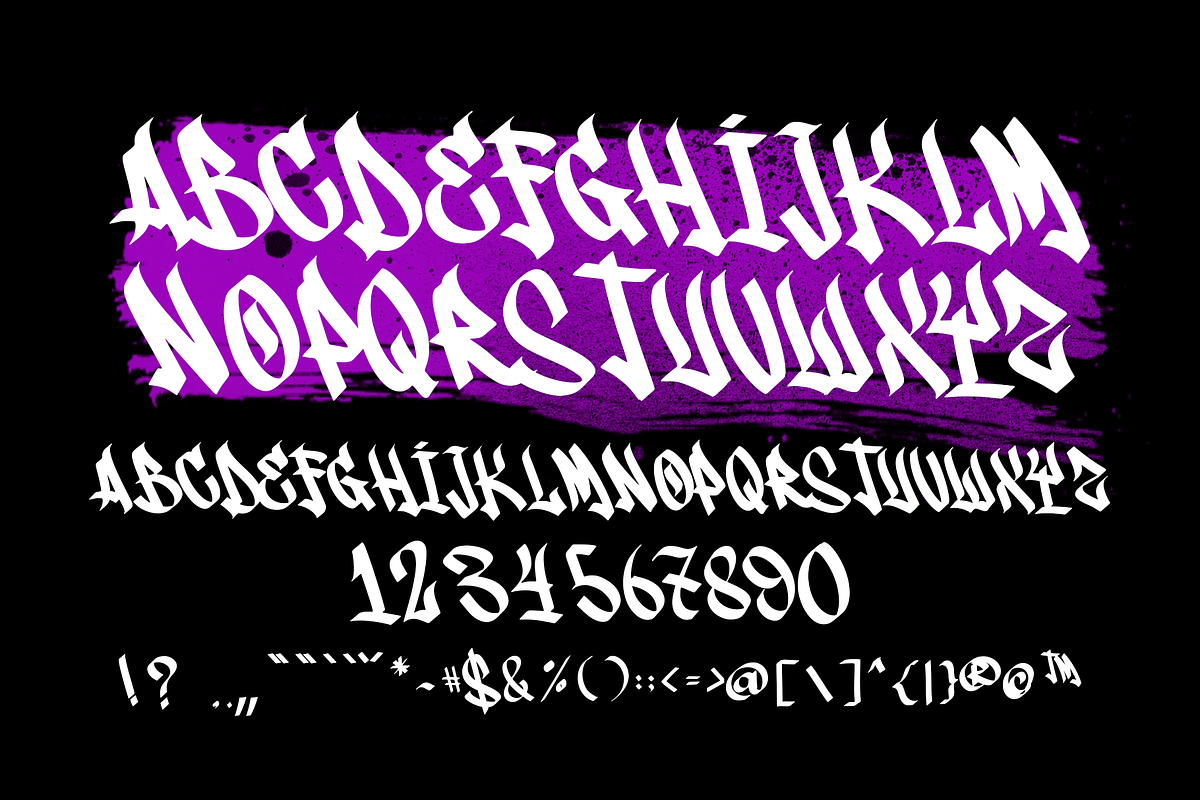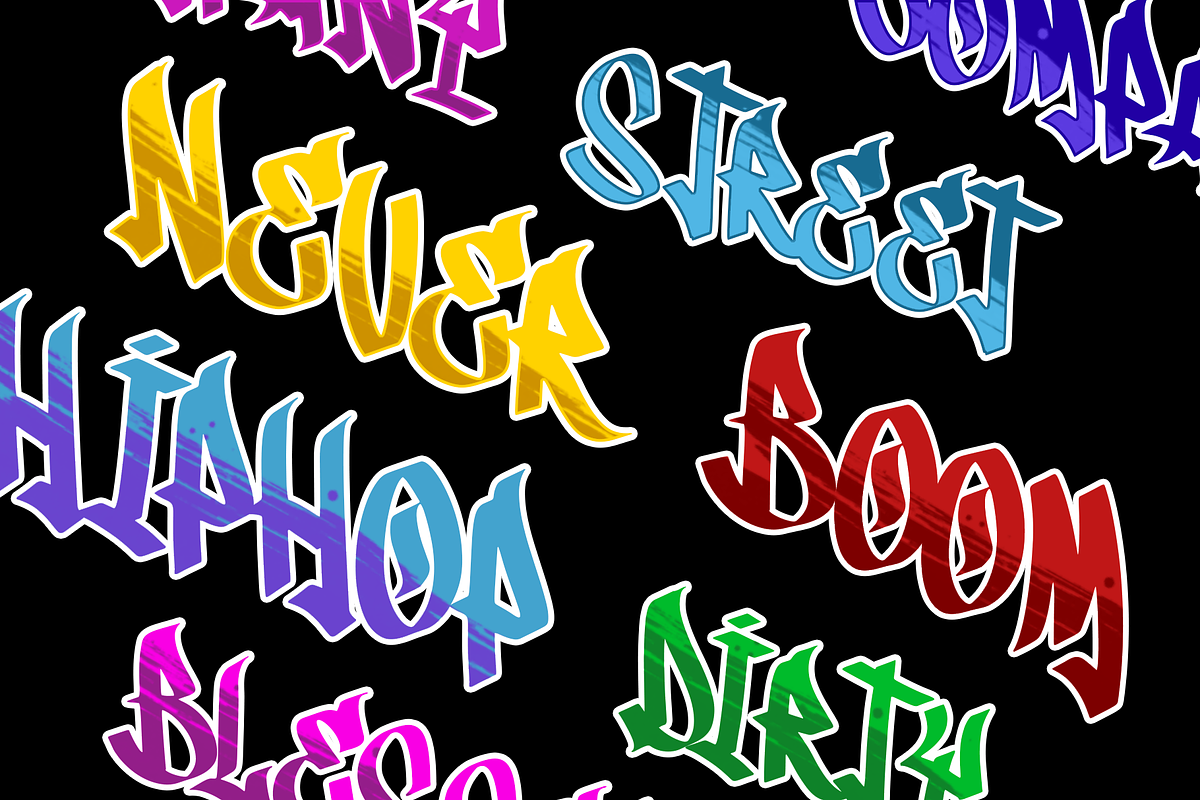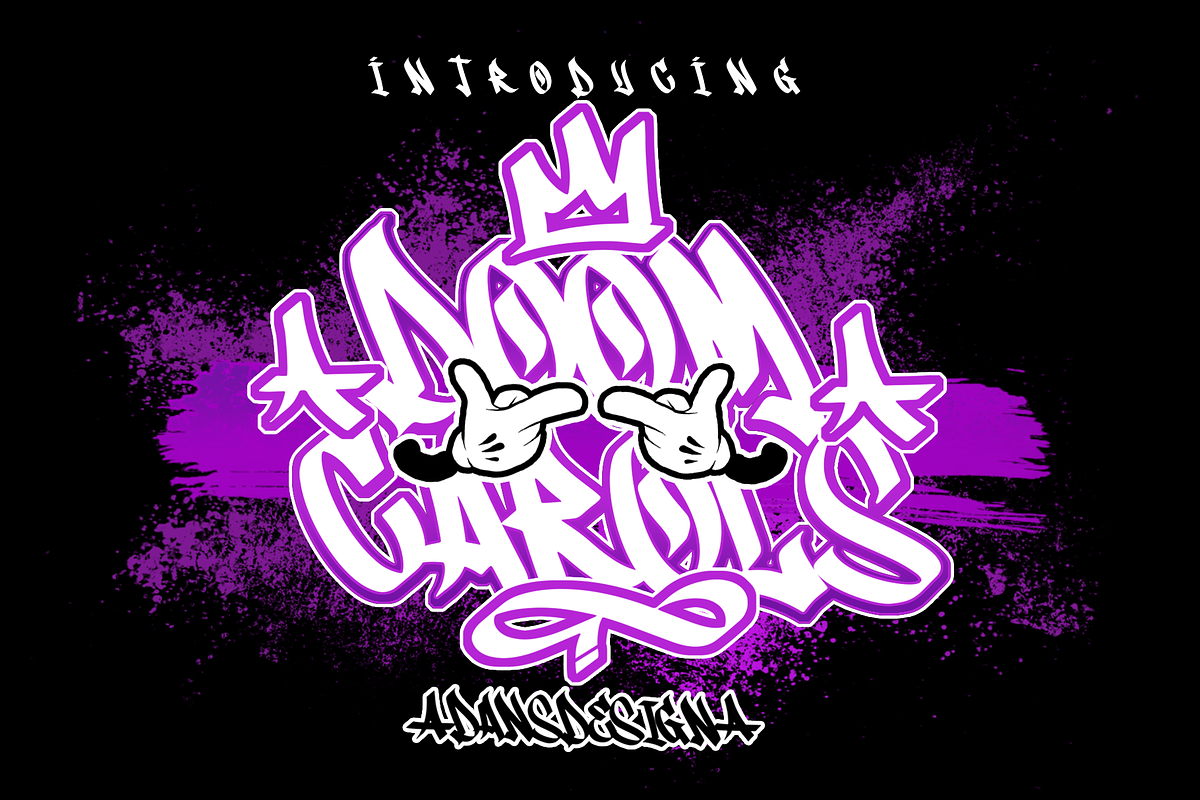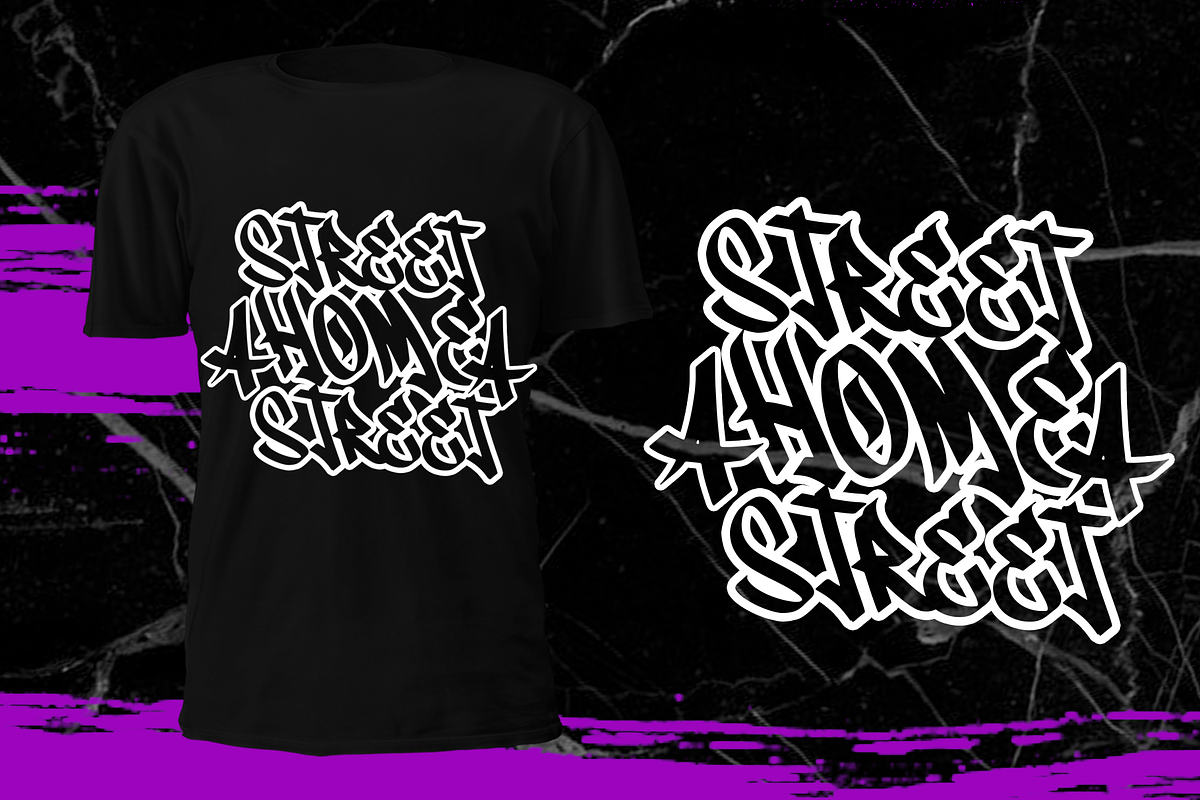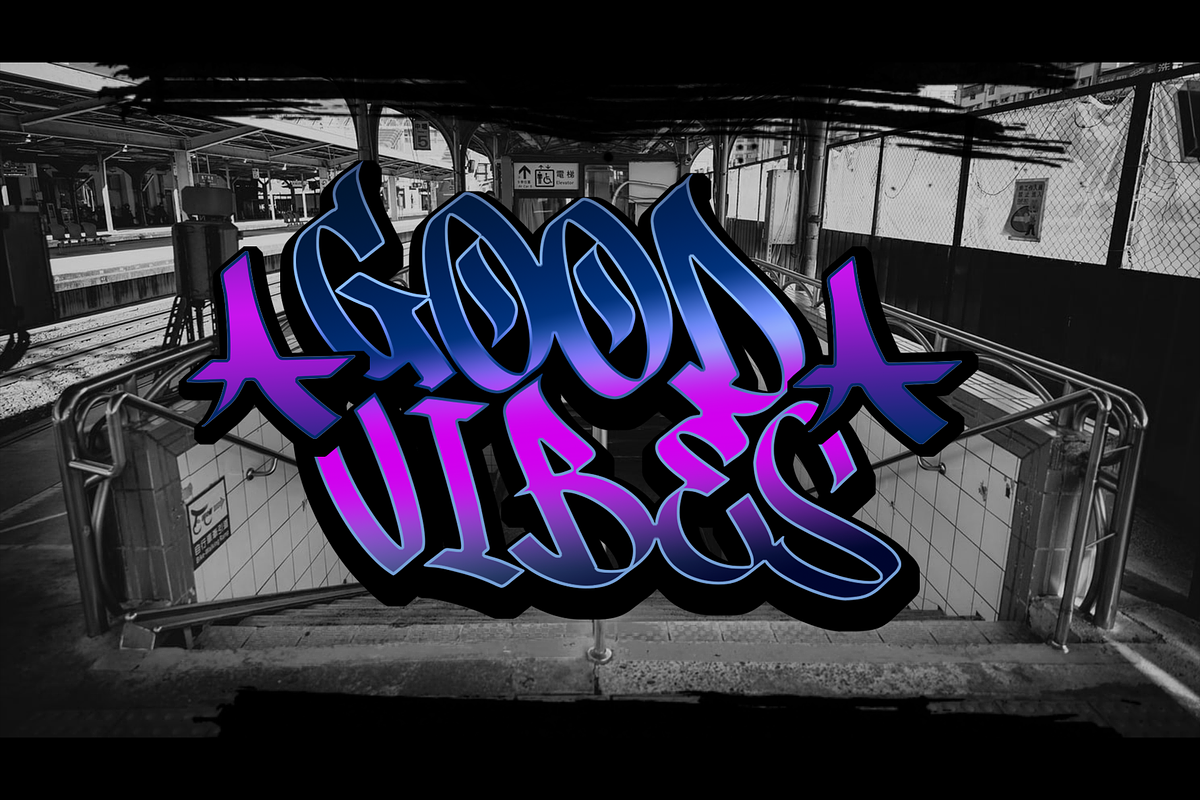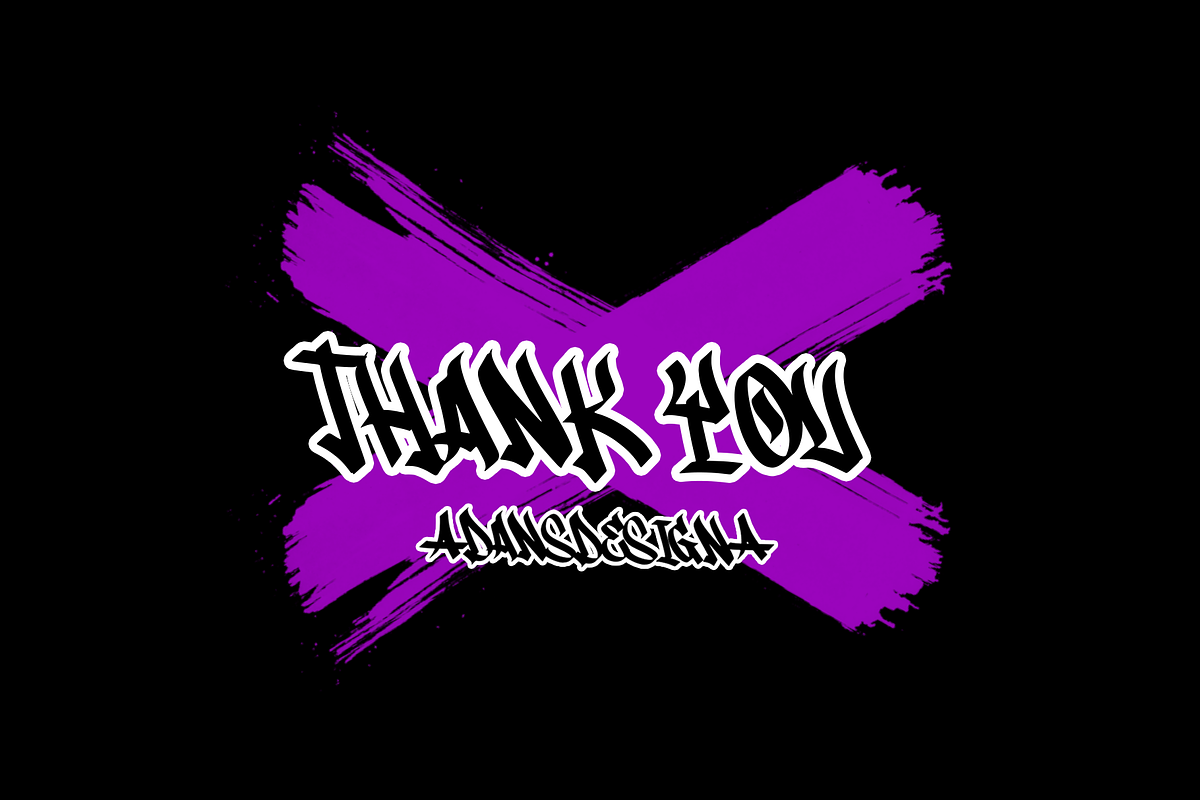
DOOM CAROLS
Dansdesign Proudly present our new product DOOM CAROLS This font is made with references to various graffiti art that I combine and design with my style.
DOOM CAROLS are great and usefull for product logo, poster title, headline, packaging, badge, wedding card logo, clothing brand logo,Vintage design and much more